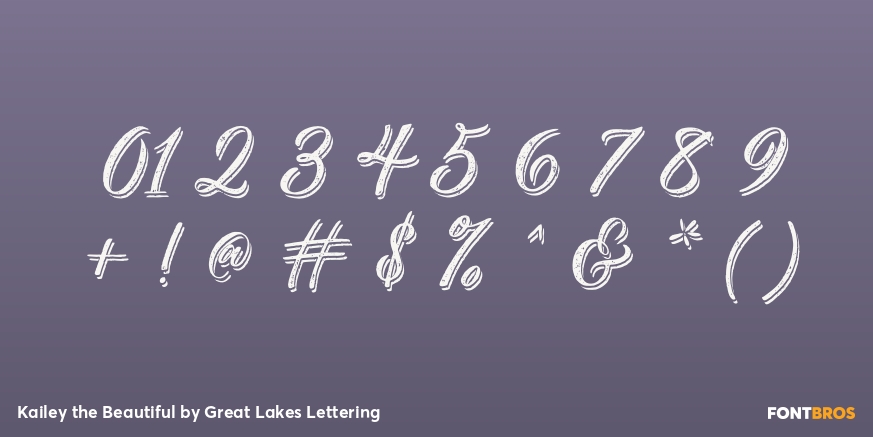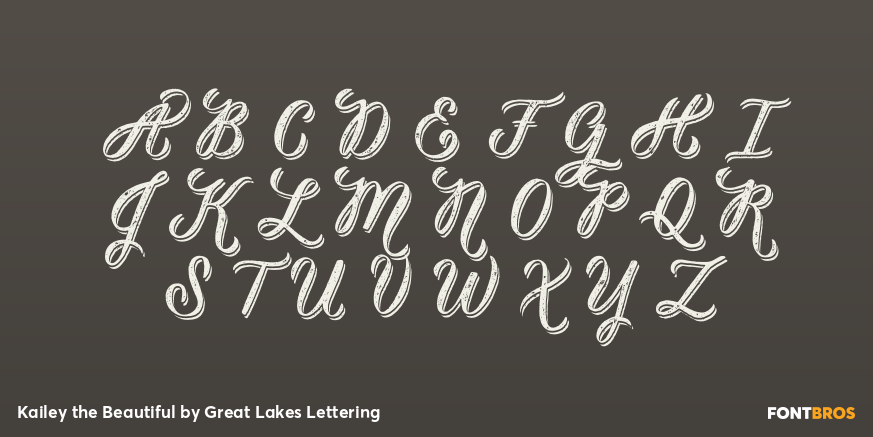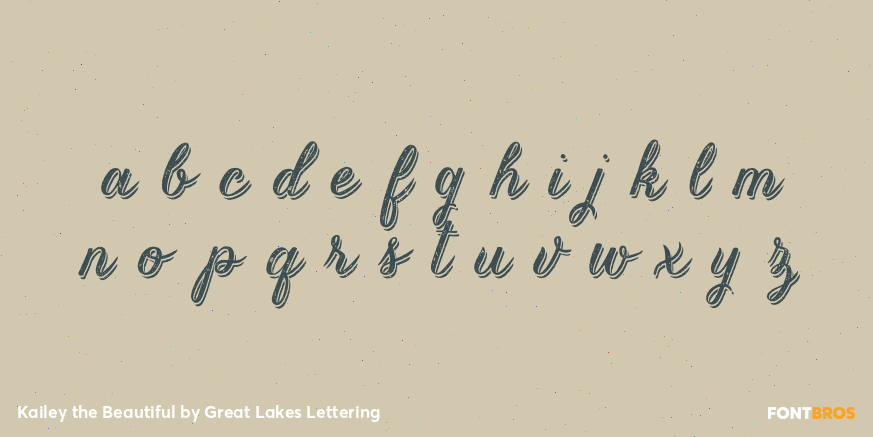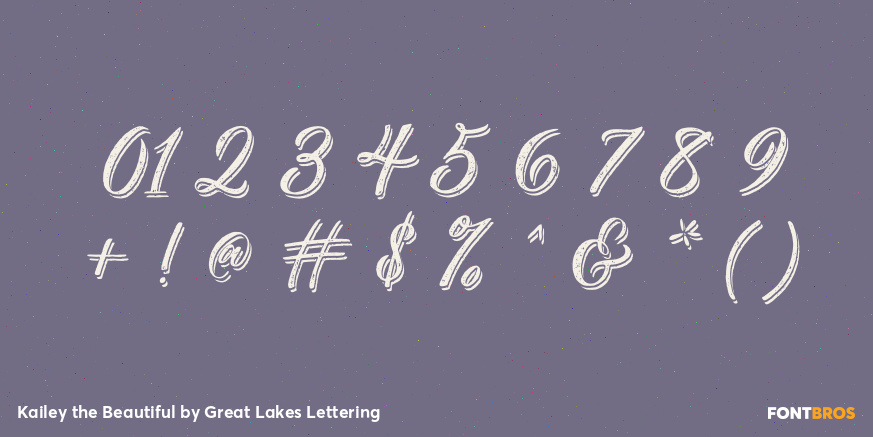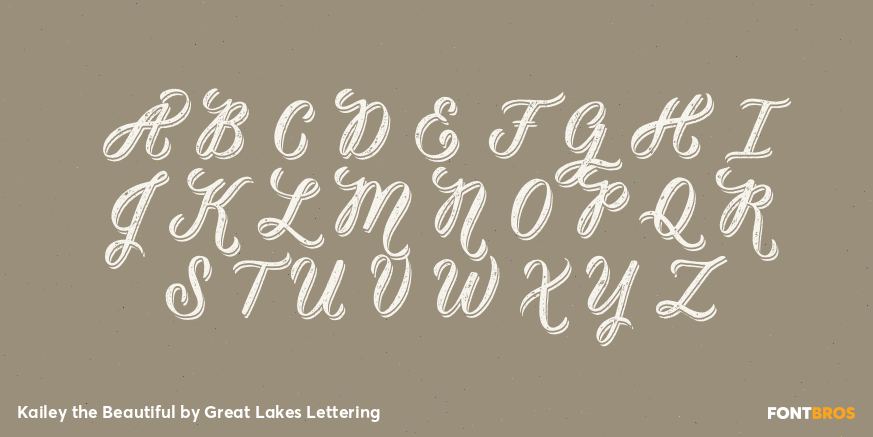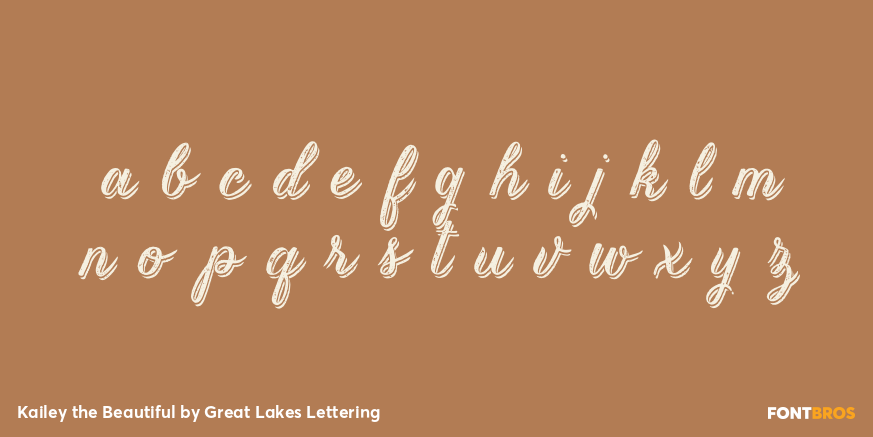
Kailey the Beautiful
Font Family by Great Lakes Lettering
Buy NowKailey font is a hand lettered, voluptuous typeface that is very special to the Great Lakes Lettering team. This oblique font is inspired by Molly Jacques? 'signature? lettering style, using bold brush strokes, fluid flourishes, and distinctive characters. Kailey has a distinct feminine feel that takes on a bold attitude to match her curves.
She comes with curvaceous swashes!